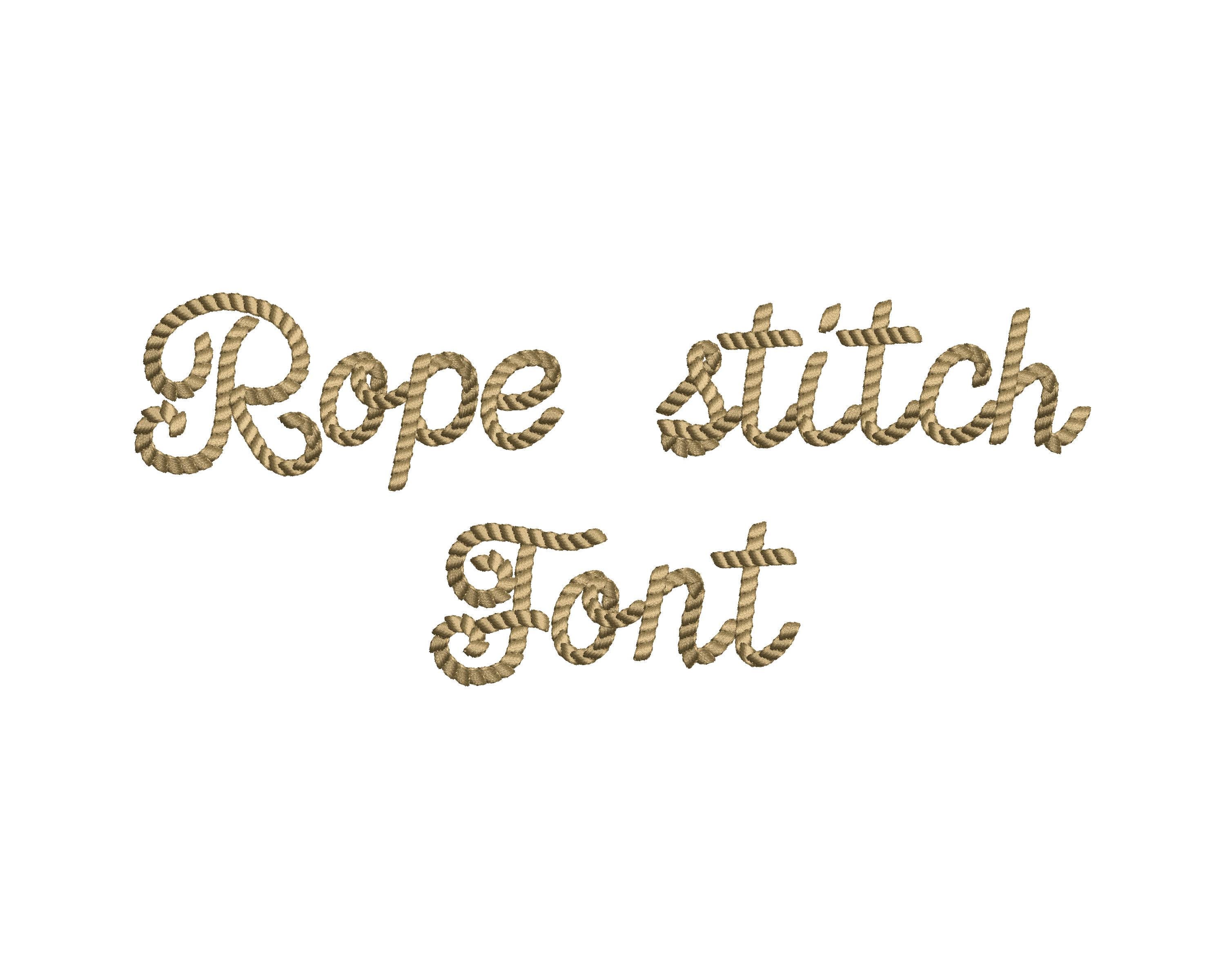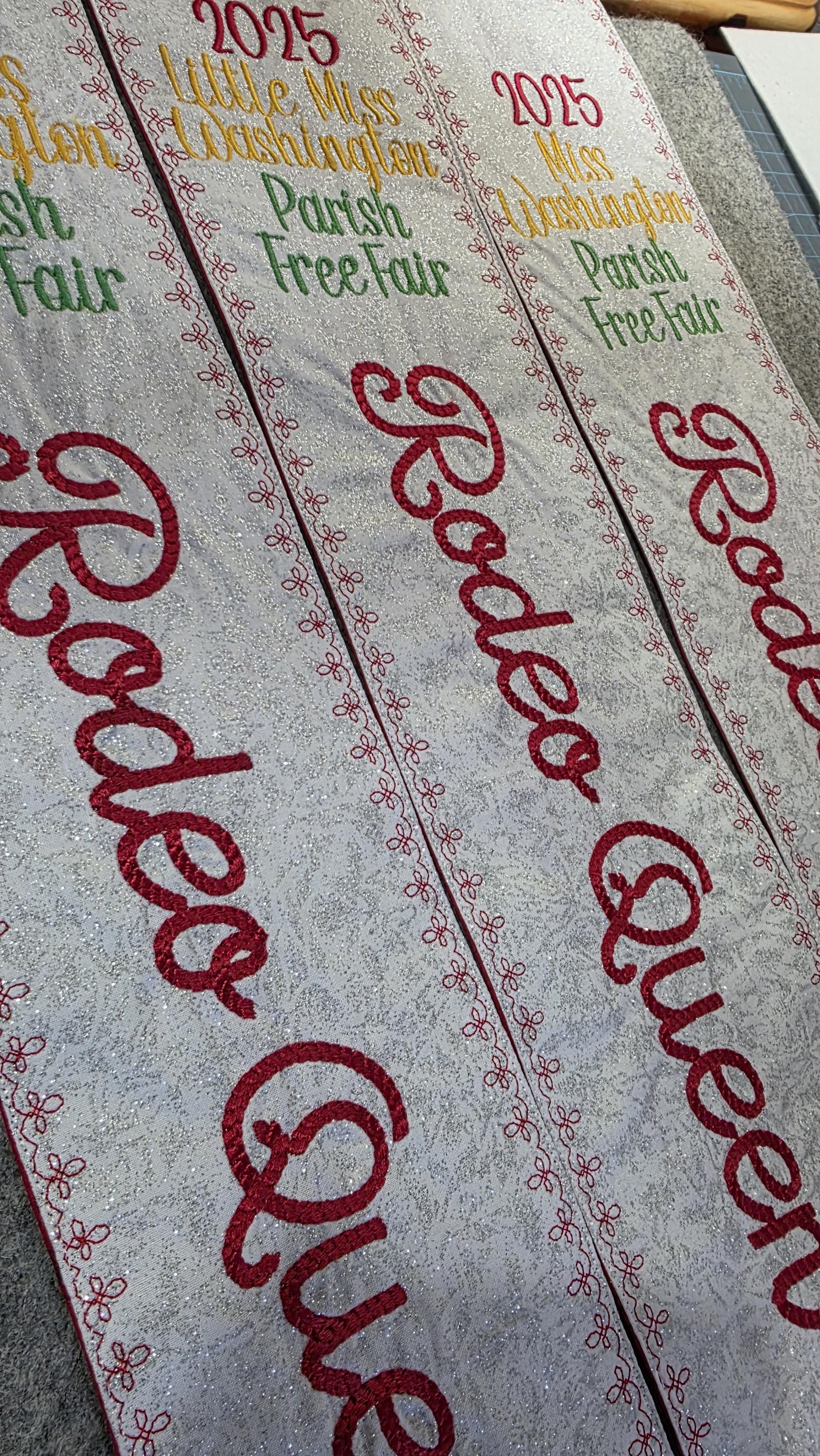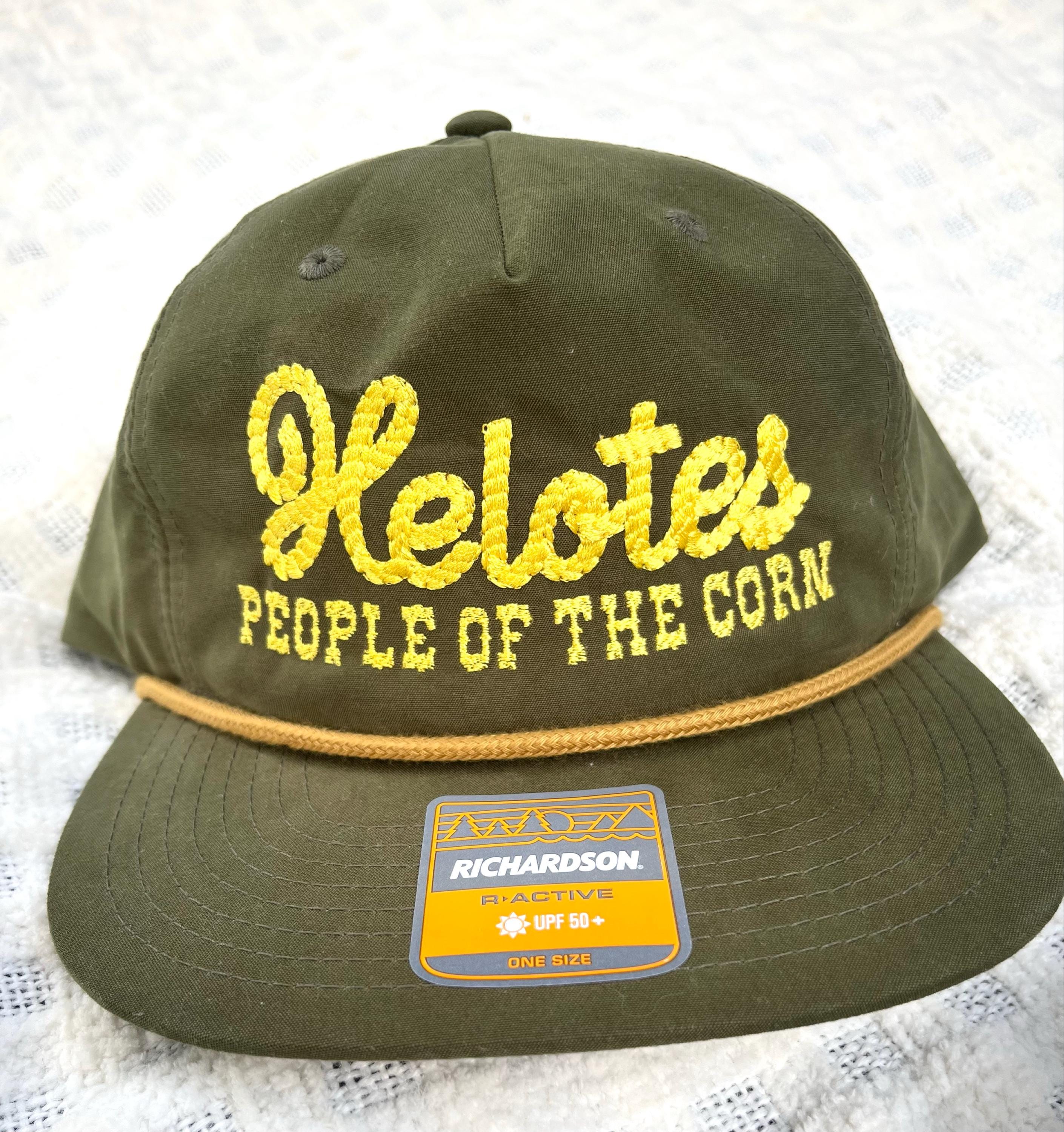
Entire alphabet uppercase and lowercase letters, and numbers.
love this font. beautiful stitching.
Stitched out absolutely beautiful on the back of my daughter-in-law's Jean jacket would highly recommend
Great font, would order again.